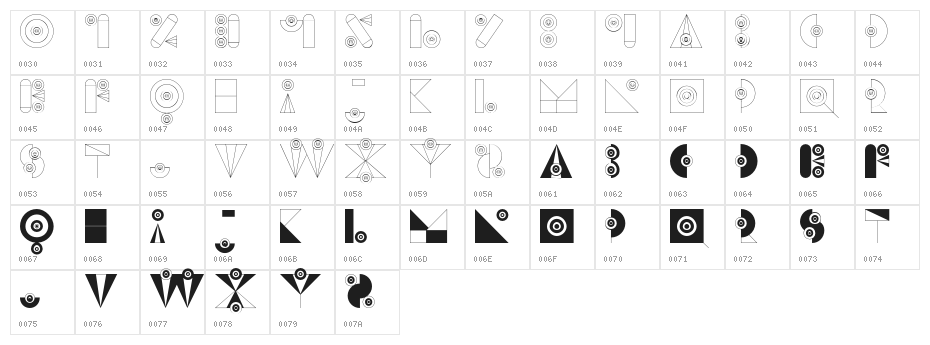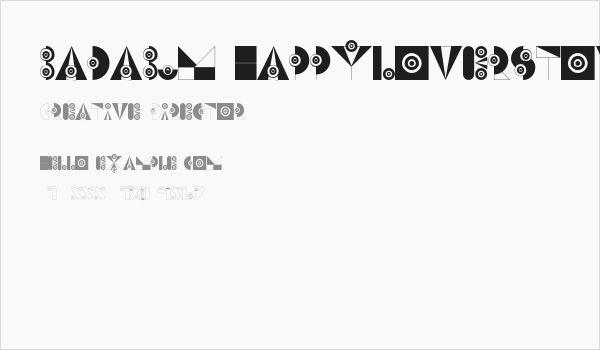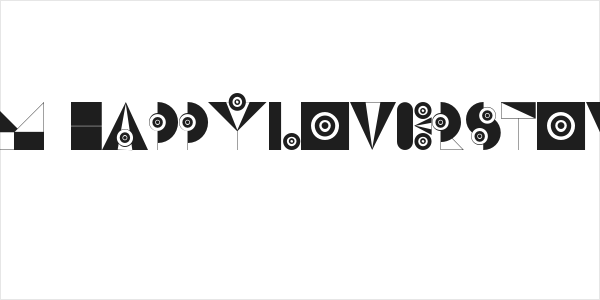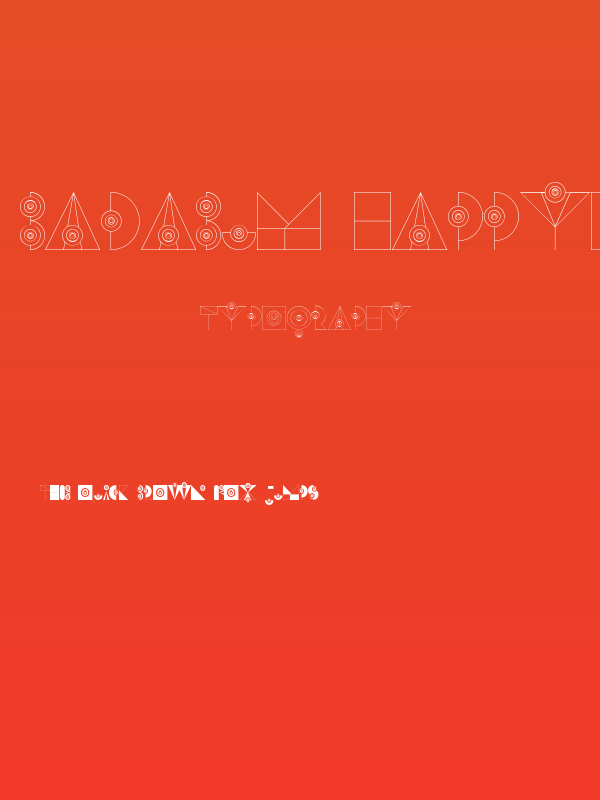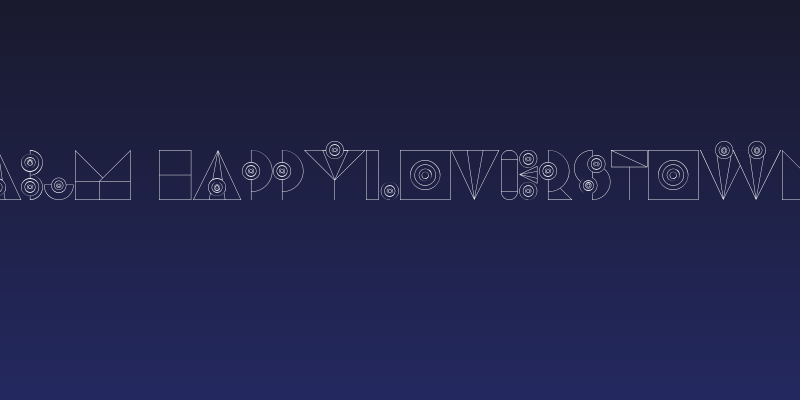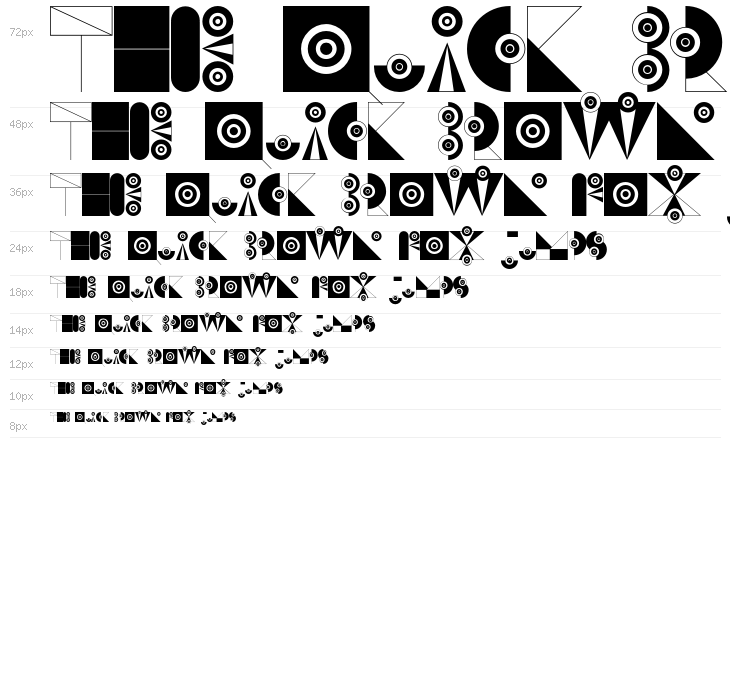
badabum-happyloverstown.eu Font
badabum-happyloverstown.eu Description
This font features a highly decorative and geometric style, characterized by the use of circles, triangles, and rectangles integrated into each letterform. The design is playful and abstract, with a mix of filled and outlined shapes creating a dynamic visual effect. The uppercase letters are bold and striking, while the lowercase letters maintain the same geometric theme but with a slightly lighter touch. Numbers and special characters follow the same design principles, ensuring consistency across the entire typeface. The overall appearance is modern and artistic, making it suitable for creative and unconventional projects.
Overall StyleModern, Artistic
Use CaseLogos, Posters, Creative Branding
Proposed ProjectsIdeal for artistic posters, modern branding, creative logos, and unique packaging designs.